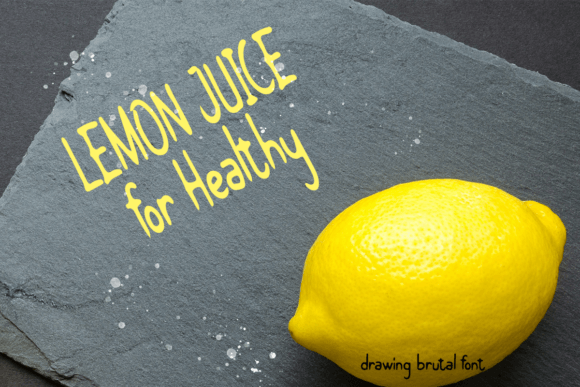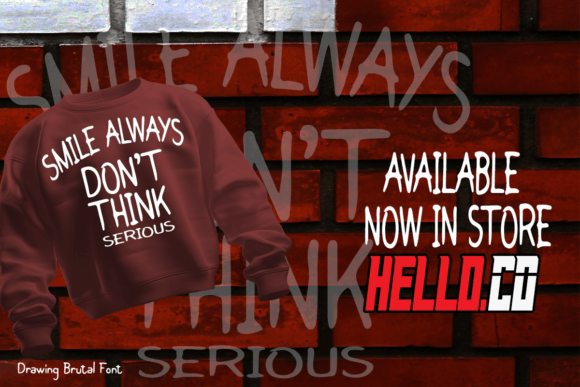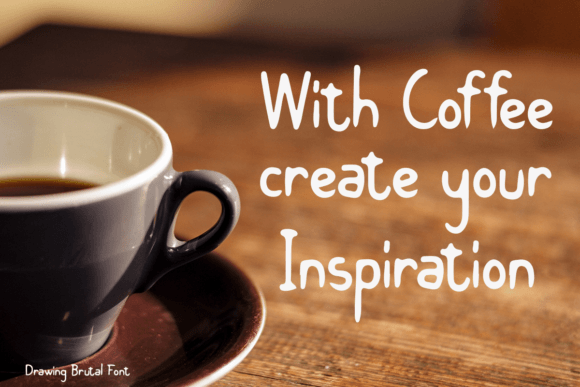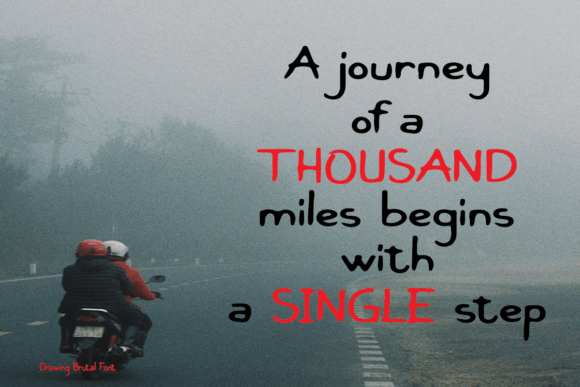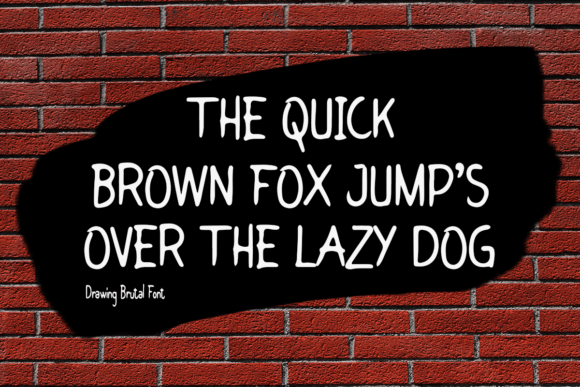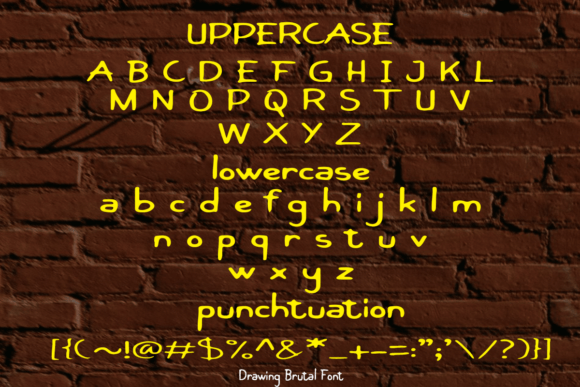
Introduction to Drawing Brutal Font
Have you ever been in a creative zone, surrounded by scattered papers and half-finished sketches, when the perfect idea strikes? That’s exactly what happens when you stumble upon the Drawing Brutal Font, a beautifully imperfect design resource that breathes life into your projects.
This font is more than just a typeface – it’s an experience. With its unique, hand-drawn strokes and deliberately uneven lines, it’s like having a personal sketchbook at your fingertips. Whether you’re crafting a brand identity, creating eye-catching posters, or working on a high-quality design project, the Drawing Brutal Font adds a touch of organic charm that’s hard to find elsewhere.
And the best part? It’s available for free download, making it an invaluable addition to your design arsenal. With its transparent background and subtle elegance, this font is sure to elevate your creative project to the next level – and it’s waiting for you to unleash its full potential.
Drawing Brutal Font
- Unique, bold design suitable for creative projects
- Includes uppercase and lowercase letters, numerals, and punctuation marks
Honest Review: Drawing Brutal Font
As a designer, I’m always on the lookout for unique and high-quality design resources to elevate my creative projects. The Drawing Brutal Font caught my attention, and I decided to give it a try. After experimenting with it, I’m excited to share my honest review.
- The font is incredibly versatile and can be used for a wide range of design projects, from headings to body text.
- The high-quality design ensures that the font looks great on both light and dark backgrounds.
- The font may not be suitable for projects requiring a more subtle or understated look.
- The bold design may overwhelm certain backgrounds or design elements.
Overall, I’m impressed with the Drawing Brutal Font. Its unique design and high-quality construction make it a valuable addition to any designer’s toolkit. While it may not be suitable for every project, it’s a great option for designers looking to add some edge to their work. With its free download option and transparent background feature, it’s definitely worth checking out.
Introduction to Drawing Brutal Font
Drawing Brutal Font is a high-quality design resource perfect for creative projects. With a free download available, you can elevate your designs with this unique font.
Tips for Getting the Most Out of Drawing Brutal Font
To get the most out of Drawing Brutal Font, try combining it with other design elements and experimenting with different font sizes and colors.
Common Use Cases for Drawing Brutal Font
Drawing Brutal Font is ideal for:
- Designing bold and edgy logos
- Creating eye-catching headings and titles
- Adding a touch of sophistication to business cards and brochures